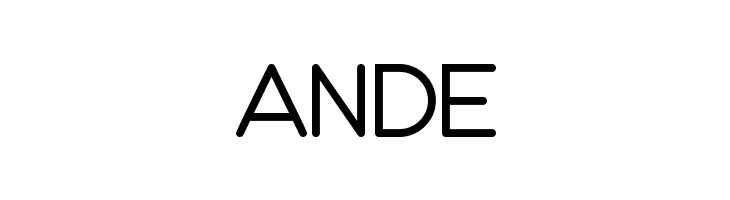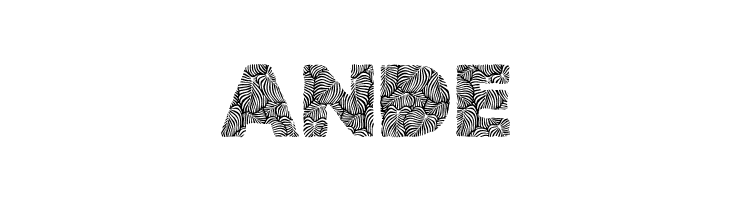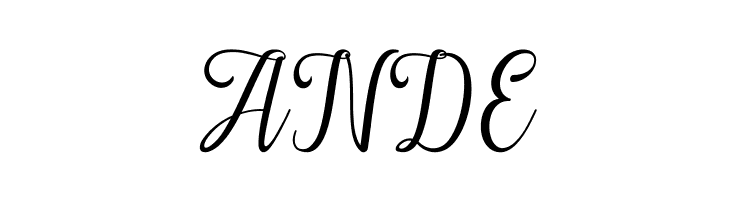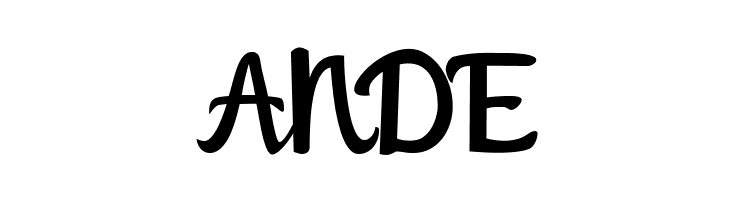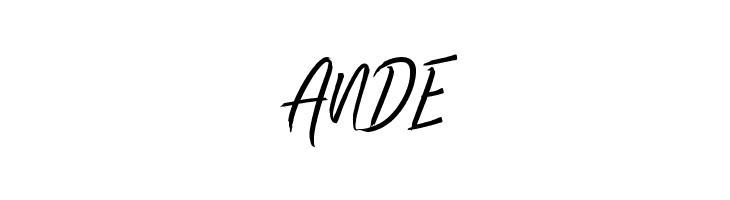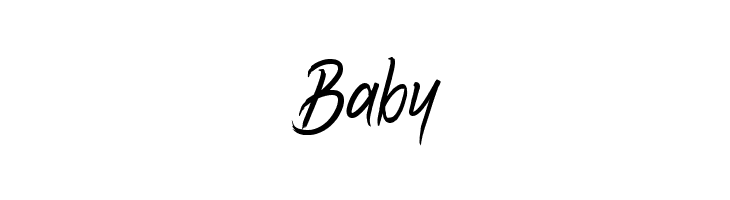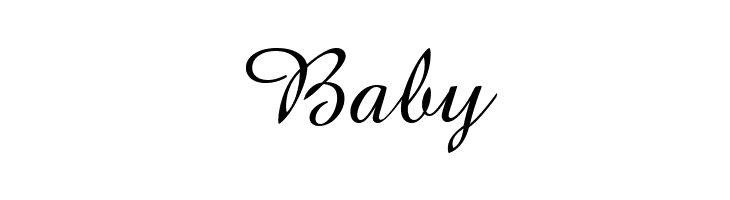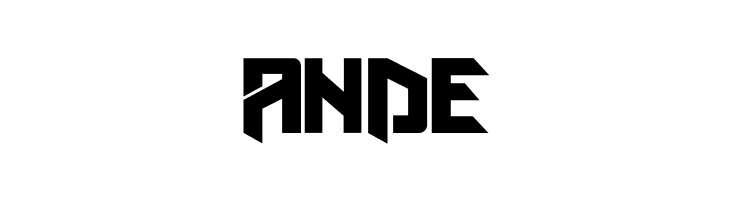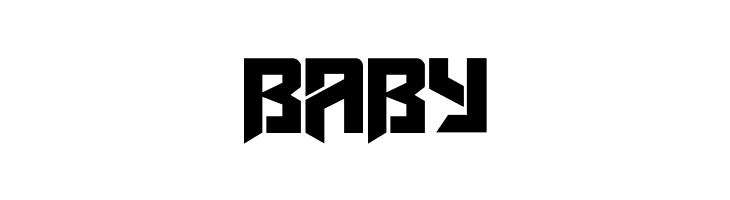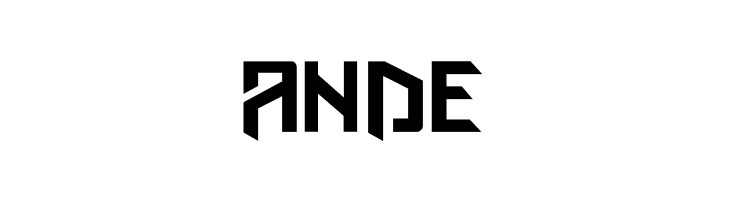
A modern, sleek font with geometric and rounded elements, offering a clean and contemporary look.
A modern, playful font with rounded characters and consistent stroke width.
A bold, italic script font with smooth, interconnected characters.
A sleek, italicized font with flowing, consistent strokes.
A bold, futuristic font with angular, geometric shapes and a dynamic style.
A dynamic, angular font with a futuristic and tech-inspired design.
A bold, slanted font with sharp angles and a futuristic style.
A bold, playful handwritten font with fluid strokes and a casual style.
A lively, expressive handwritten font with fluid, dynamic strokes.
A lively, expressive handwritten font with bold, flowing strokes.
An artistic, calligraphic font with flowing, elegant curves.
A bold, whimsical font with flowing, curvaceous lines and playful energy.
A bold, italic script font with elegant curves and a flowing style.
An elegant, italicized font with a flowing, cursive-like style.
A bold, italic font with a dynamic and geometric style.
A playful and whimsical font with bold, slightly condensed characters.
A bold, futuristic font with geometric, outlined characters.
A playful, hand-drawn font with tall, narrow letters and a whimsical style.
A playful handwritten font with a casual, friendly style.
A bold, distressed font with a grunge aesthetic and rugged texture.
A bold, angular, and geometric font with a futuristic style.
A bold, angular font with a futuristic and geometric design.
A bold, geometric font with sharp angles and a futuristic inline design.
A bold, angular, and italicized font with a futuristic style.
A bold, angular font with a futuristic and dynamic design.
A bold, geometric outline font with a futuristic and edgy style.
A bold, angular font with a futuristic and geometric design.
An elegant, flowing script font with graceful curves and calligraphic flair.